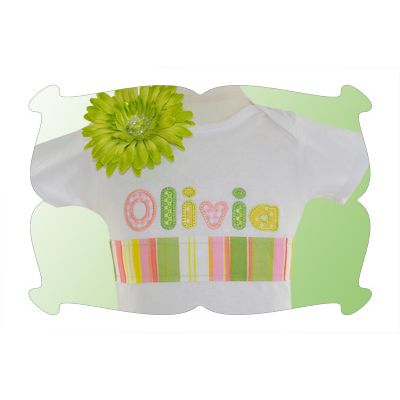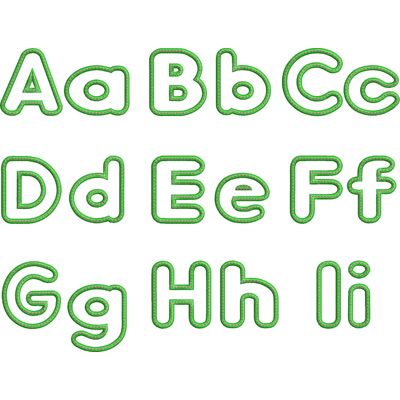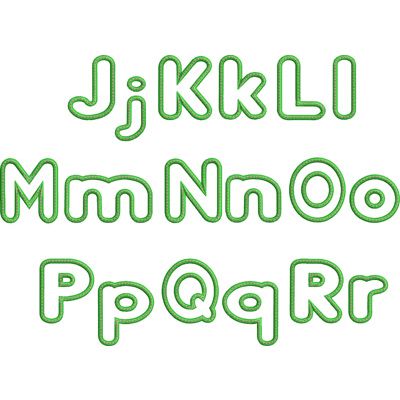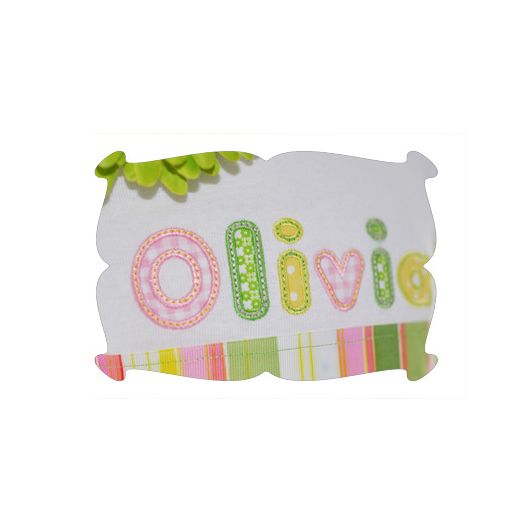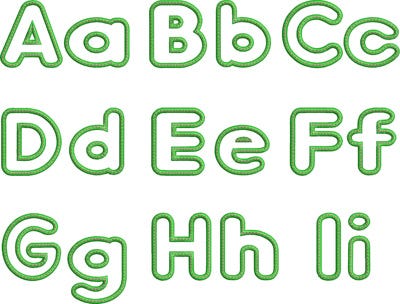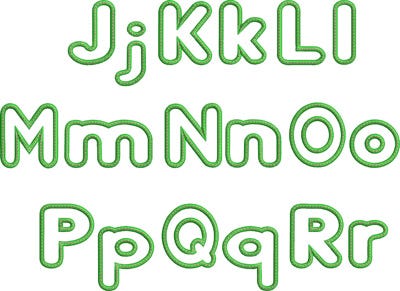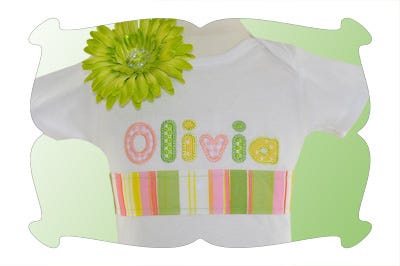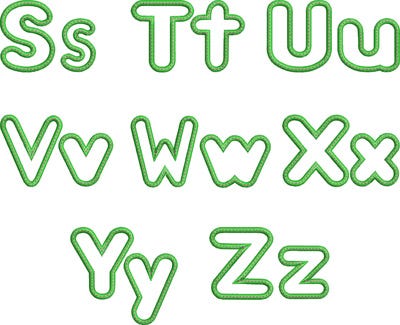
Small Satin Stitch Applique Embroidery Font
Small Applique Font
I've had tons of requests for a small applique font!
This font is perfect for those smaller projects when the large applique letters just won't work.
Capital letters A thru Z, lower case letters a thru z.
3 sizes included: 1.50, 1.75 and 2.00 inches.
3 finishing styles: satin, satin with a contrasting triple stitch and zig zag.